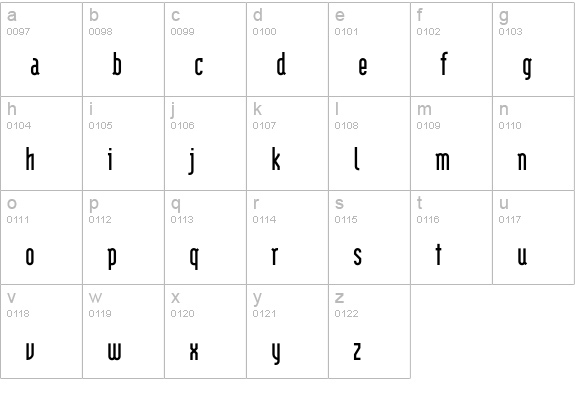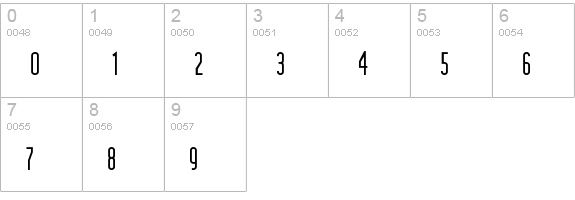
ModulaBold Font Details
ModulaBold font is a modern and stylish typeface that exudes confidence and sophistication. With its bold and eye-catching design, ModulaBold is perfect for adding a touch of elegance to your projects. The strong, clean lines of this font make it ideal for headlines, titles, and branding materials. What's even better is that ModulaBold is available for free download at FontsMarket.com. This means you can easily access this stunning font and incorporate it into your designs without any hassle. Whether you're working on a professional presentation, a creative project, or simply looking to elevate your typography game, ModulaBold is a versatile and striking choice that will make your text stand out.